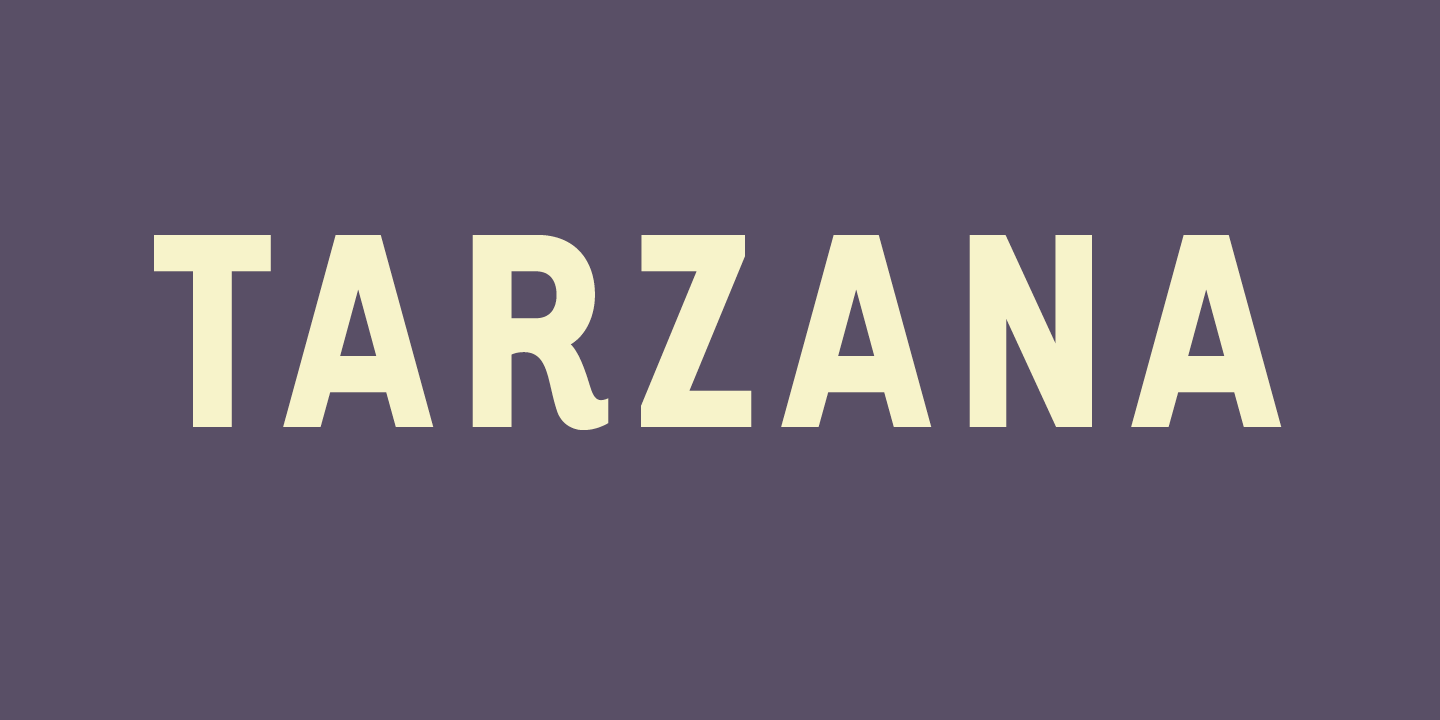
Looking for a bold, urban-inspired typeface with streetwise attitude? The Tarzana Font Free Download delivers a chunky, high-impact display font perfect for music posters, sportswear branding, and designs needing urban edge. With its athletic proportions and street-smart personality, this font brings instant energy to any project.
Why Tarzana Demands Attention
The Tarzana Font Free Download captures metropolitan energy:
Urban Architecture Inspired – Angular letterforms with solid presence
Athletic Proportions – Optimized for jersey numbers and team logos
Music-Ready Attitude – Perfect for hip-hop/EDM event graphics
Street Culture Aesthetic – Works for skate/surf brands
Best Applications:
Basketball/streetwear merch
Music festival promotions
Gym/fitness branding
Urban renewal campaigns
Sneaker culture graphics
Designer Tip: Layer with grunge textures for underground vibe
Bring street credibility to your designs with the Tarzana Font Free Download – where typography meets urban energy.